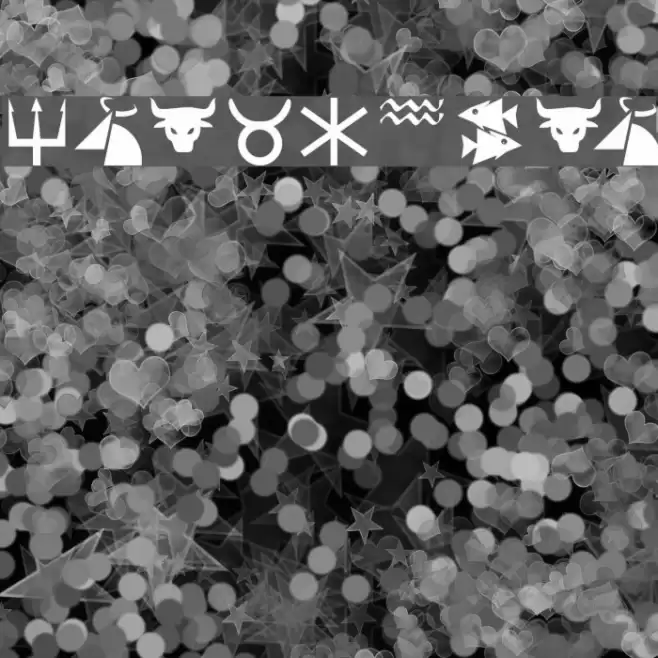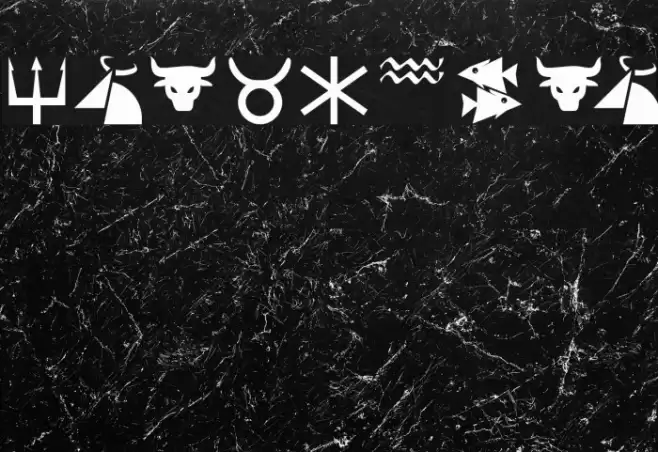
AstroBats Font
AstroBats Description
This collection features a diverse array of astrological and astronomical symbols, each designed with a unique flair that combines traditional motifs with modern design elements. The symbols are bold and striking, with a variety of shapes that range from geometric to organic. Each character is distinct, making them suitable for projects that require a touch of mysticism or celestial themes. The symbols include representations of zodiac signs, planets, and other cosmic elements, each crafted with attention to detail and artistic expression. The overall style is decorative and thematic, perfect for adding an esoteric or cosmic touch to any design project.
A decorative set of astrological and astronomical symbols with a modern twist from Uncategorized fonts.
- Proposed Projects: Ideal for astrology-themed designs, cosmic event posters, mystical branding, or educational materials about astronomy.
- Use Case: Logos, Posters, Themed Designs